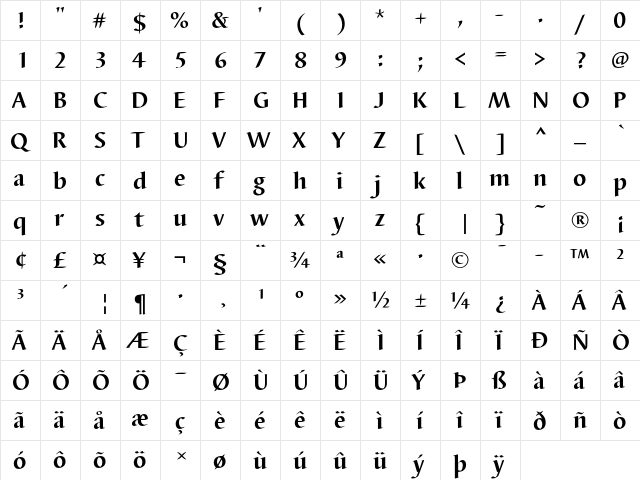
Barbedor T Bold
Design Context for Barbedor T Typeface
Barbedor T takes a measured approach to typography — its balanced proportions and neutral character make it a reliable workhorse for both digital and print work. Its bold stroke weight gives it real presence on the page.